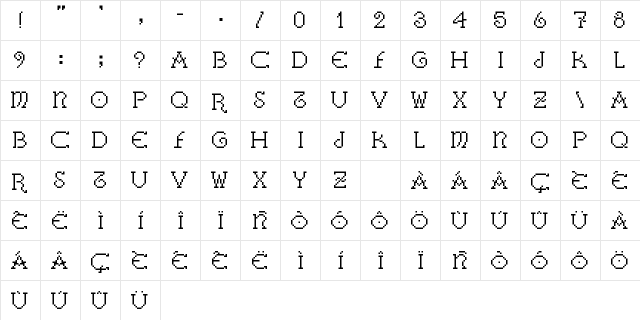
GallaeciaPixelei Medium
Design Context for GallaeciaPixelei Typeface
GallaeciaPixelei celebrates the constraints of early digital type, turning pixel geometry into a distinctive and immediately recognisable style.
A natural choice for retro game titles, chiptune music branding, 8-bit UI, and digital nostalgia projects.